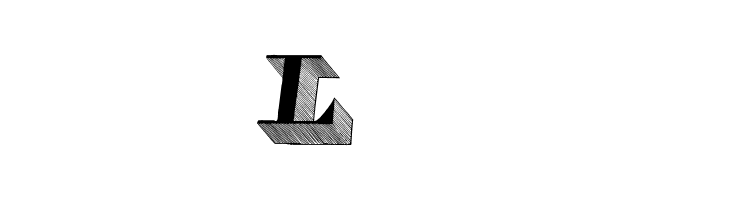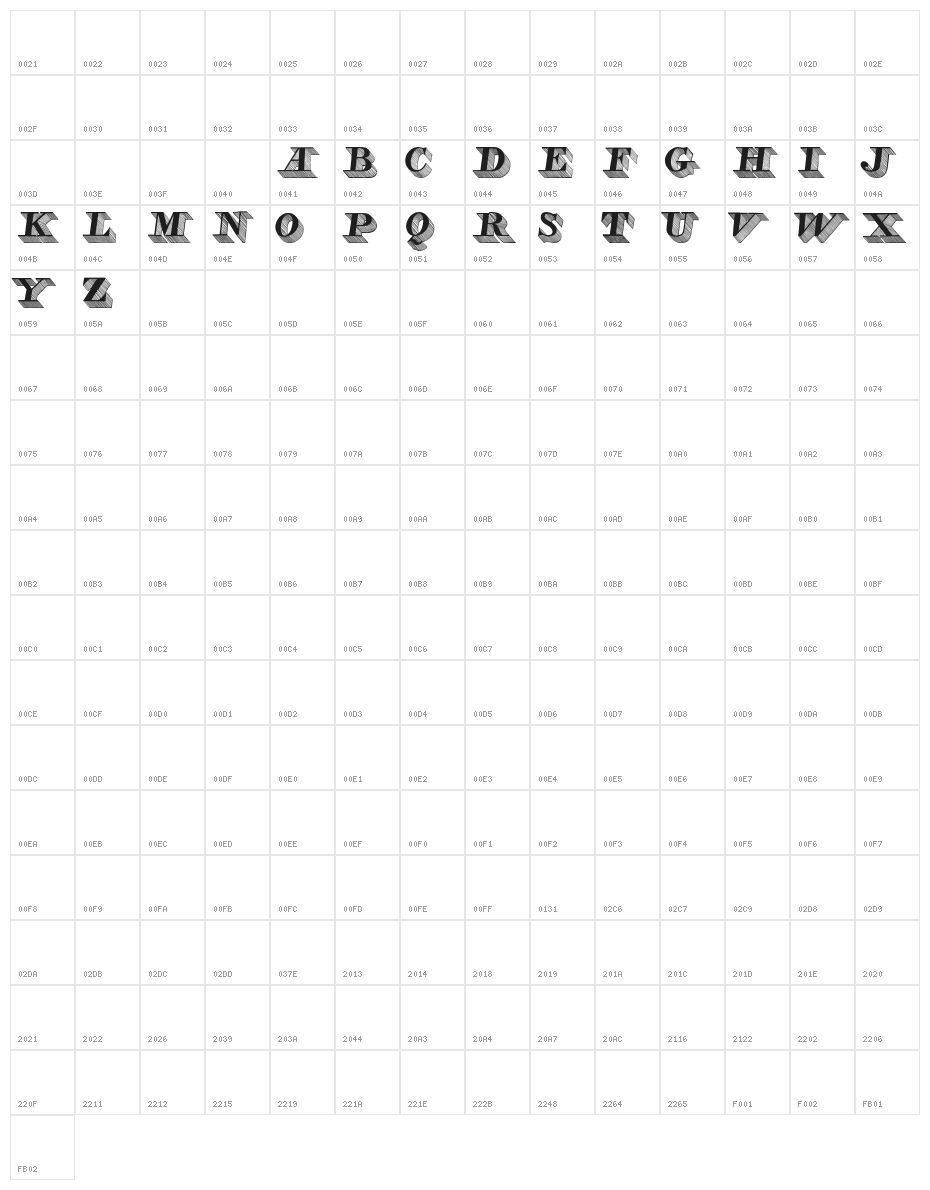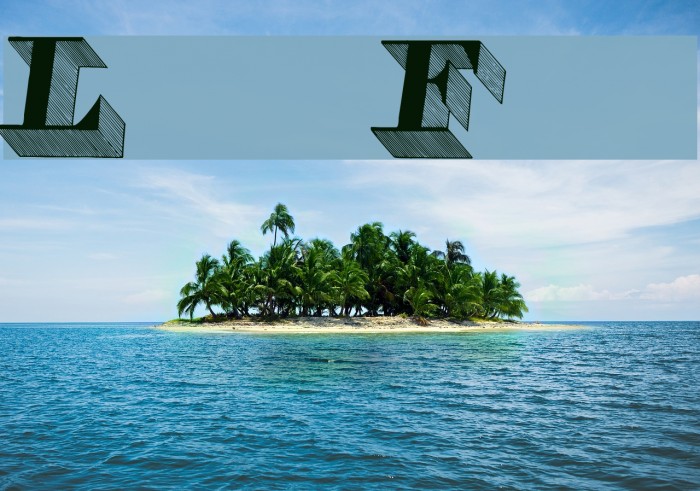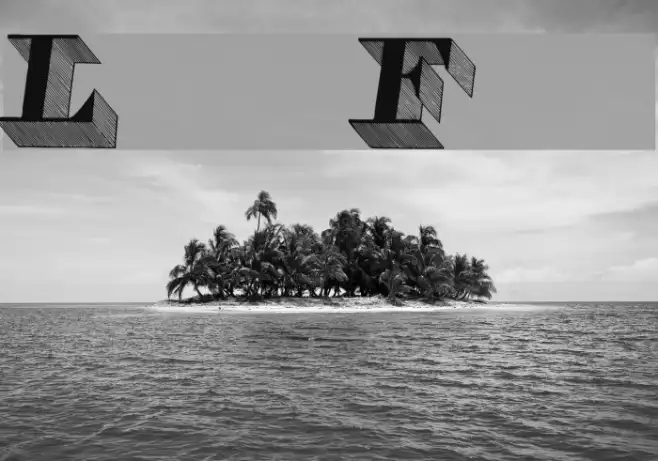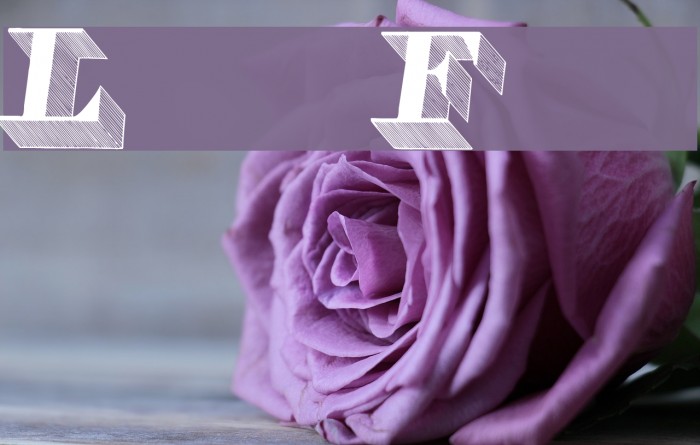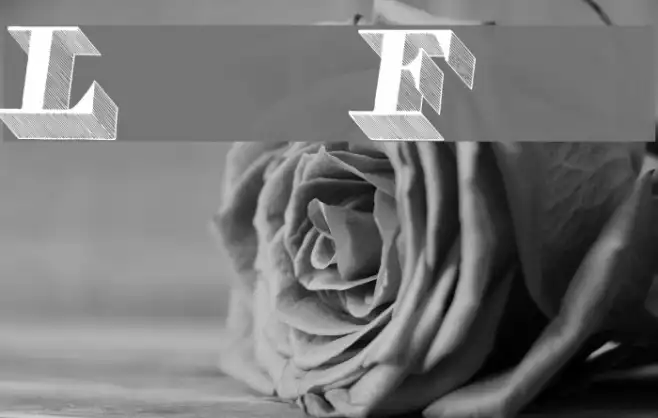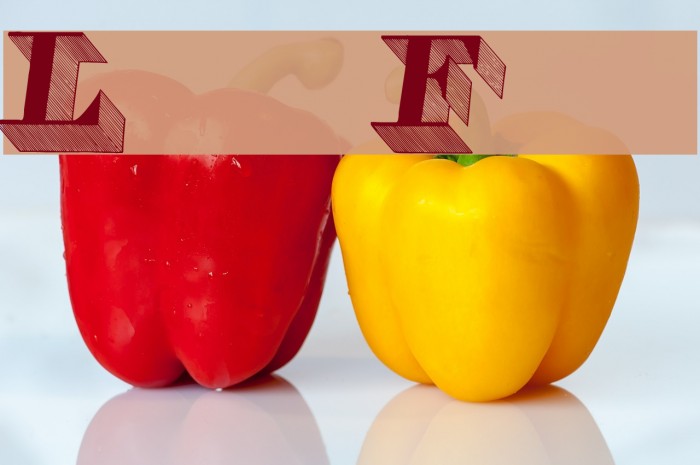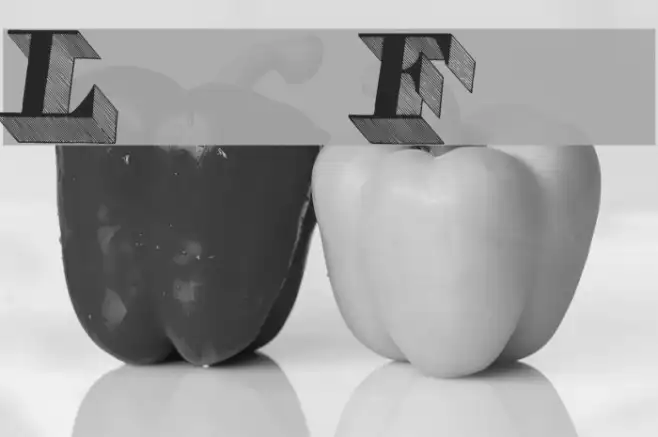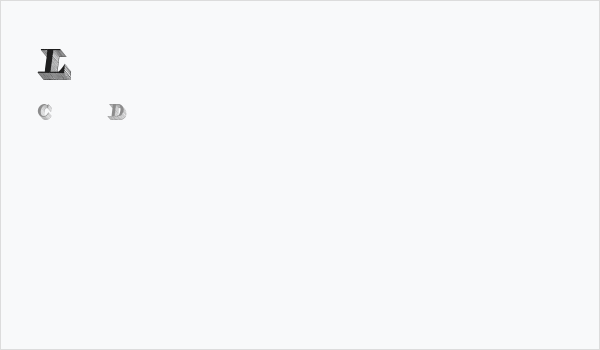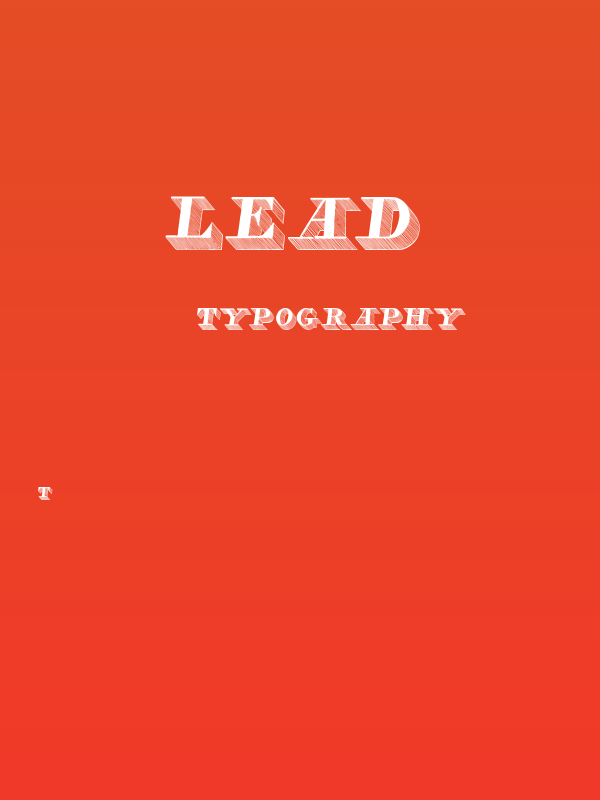
Lead Font
Lead Description
This font features a bold, three-dimensional design with a classic serif style. Each letter is meticulously crafted with a shadow effect that gives it a sense of depth and dimension. The serifs are pronounced, adding a touch of elegance and tradition to the overall appearance. The font's structure is robust, making it suitable for impactful headlines and titles. The shadowing is consistent across all characters, enhancing the visual interest and making it stand out in various design contexts.
| Proposed Projects | Ideal for vintage posters, book covers, and branding that requires a classic yet bold statement. |